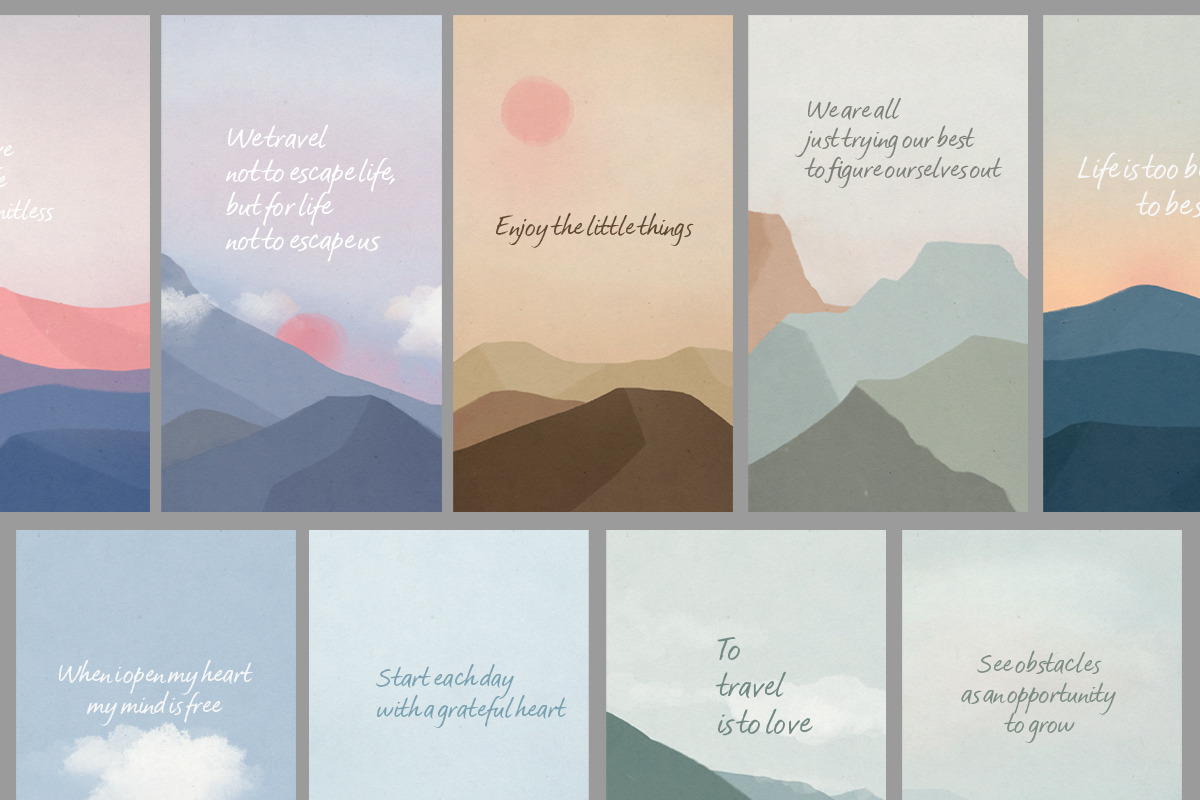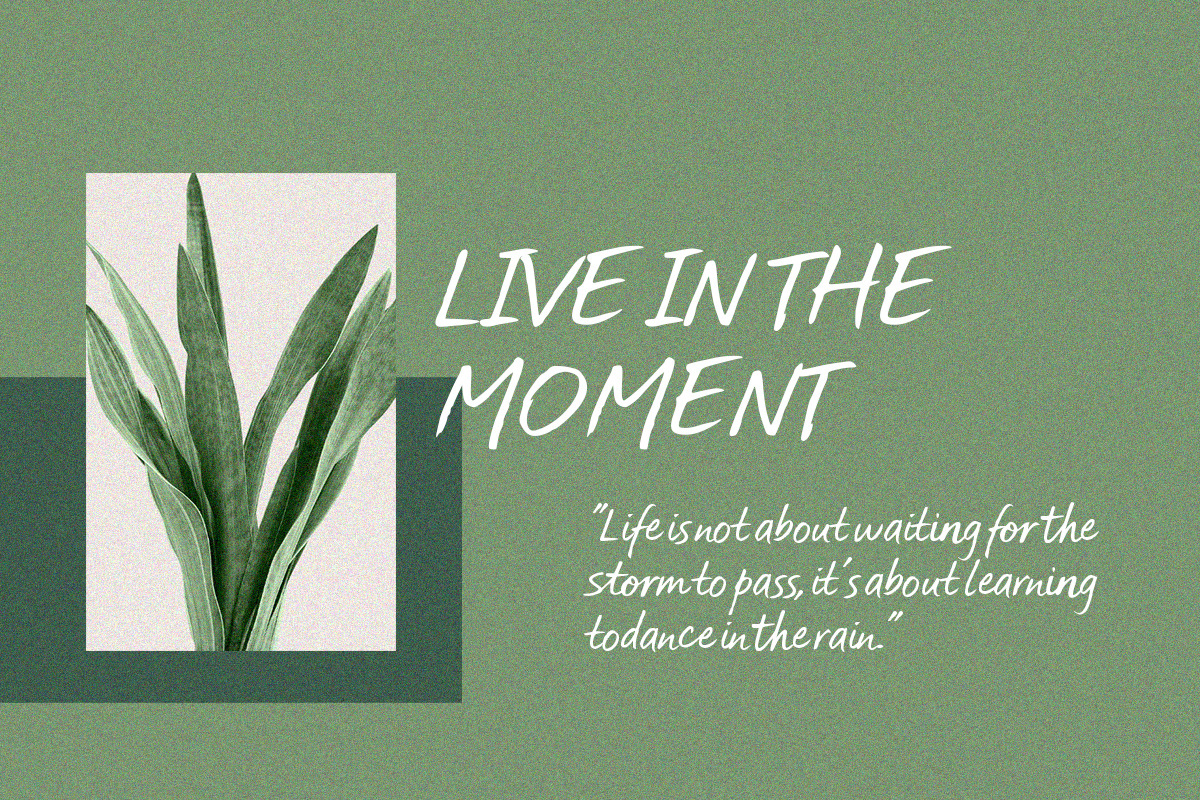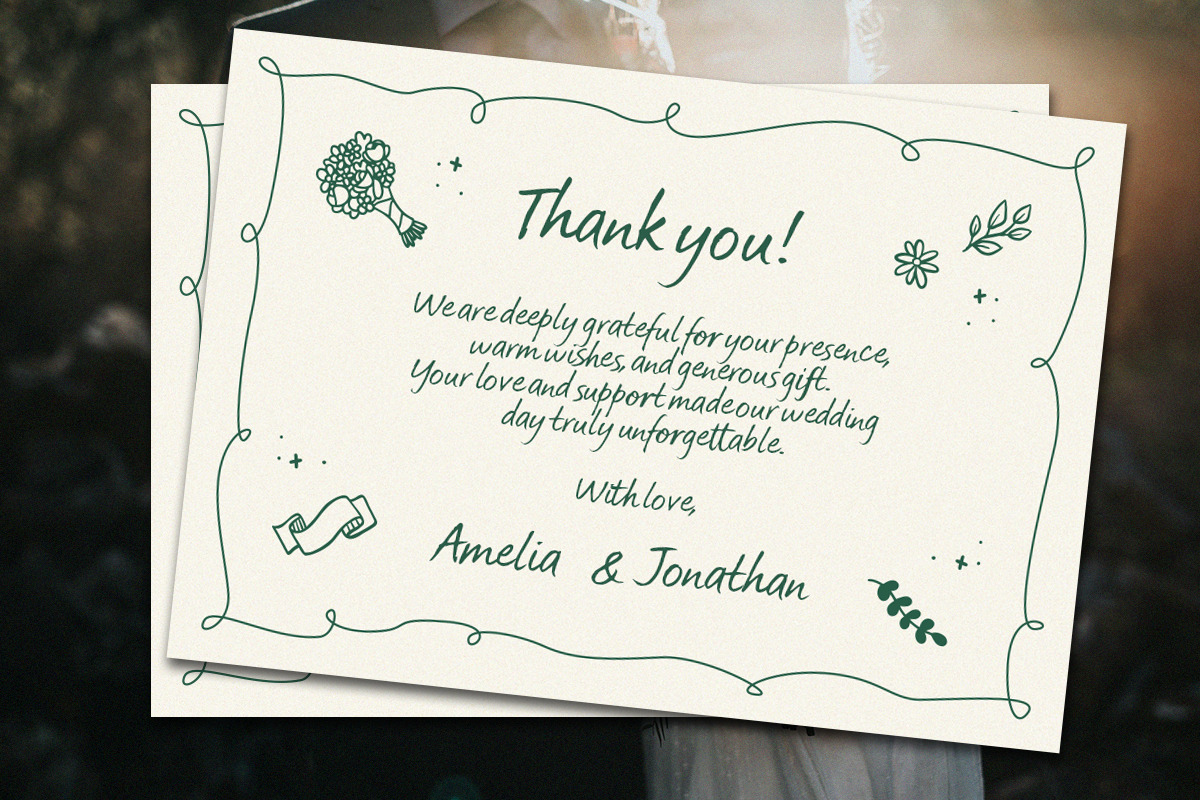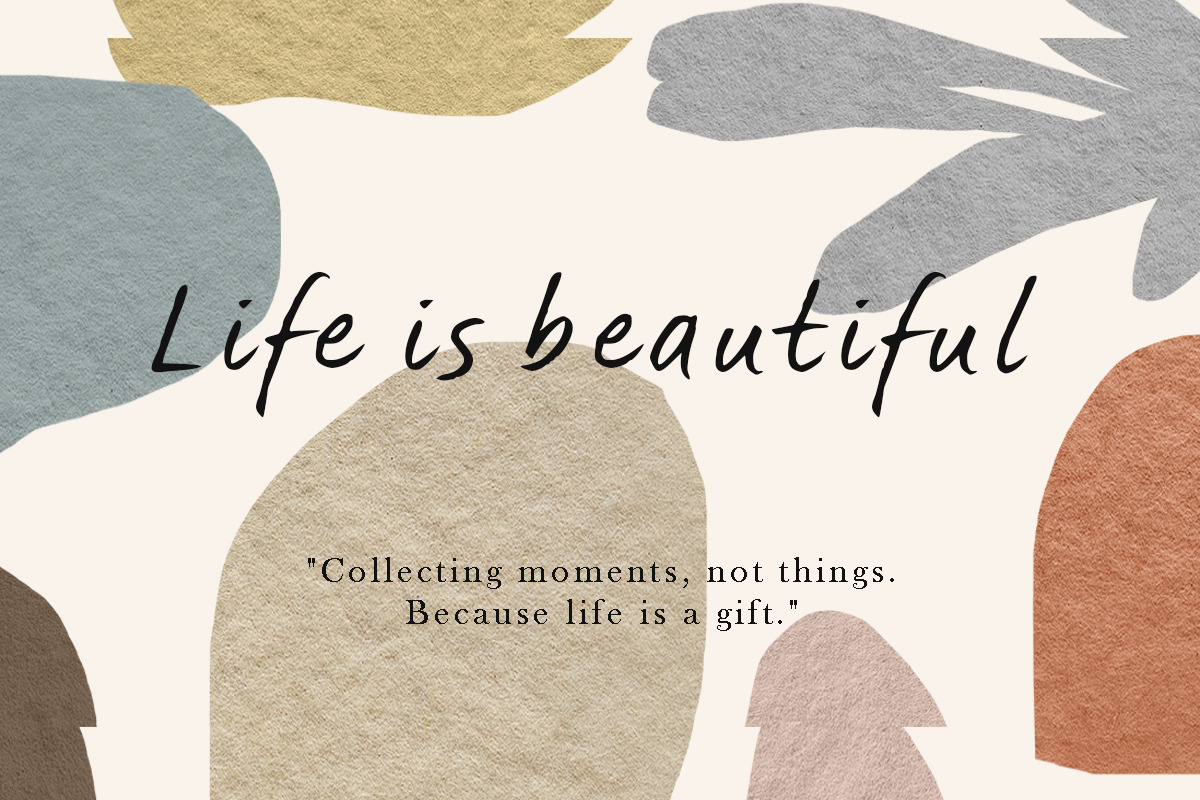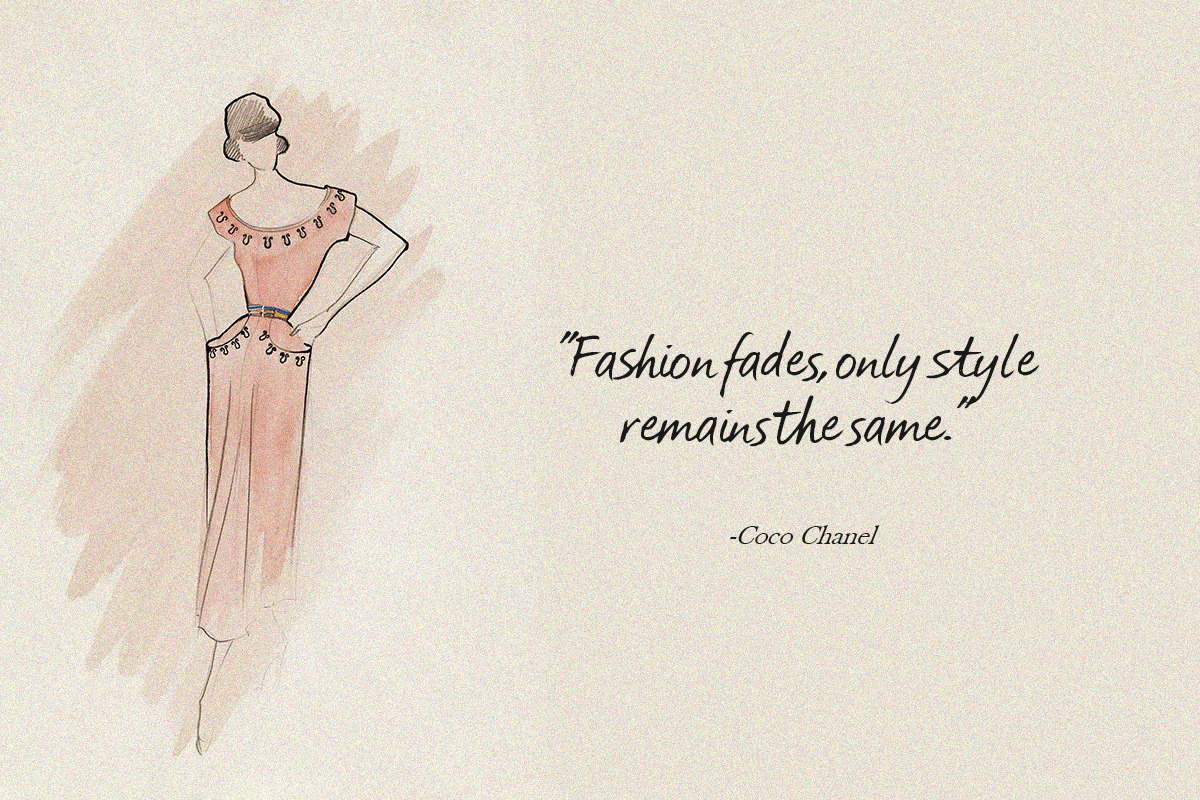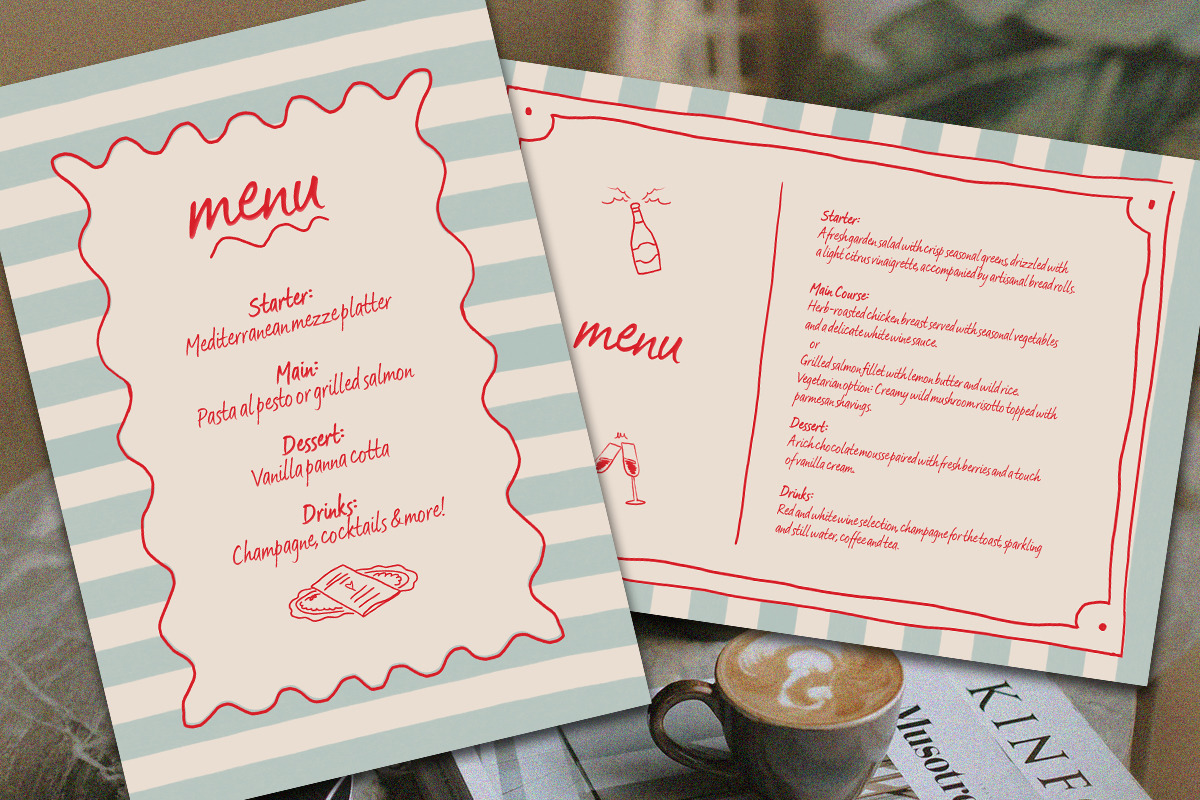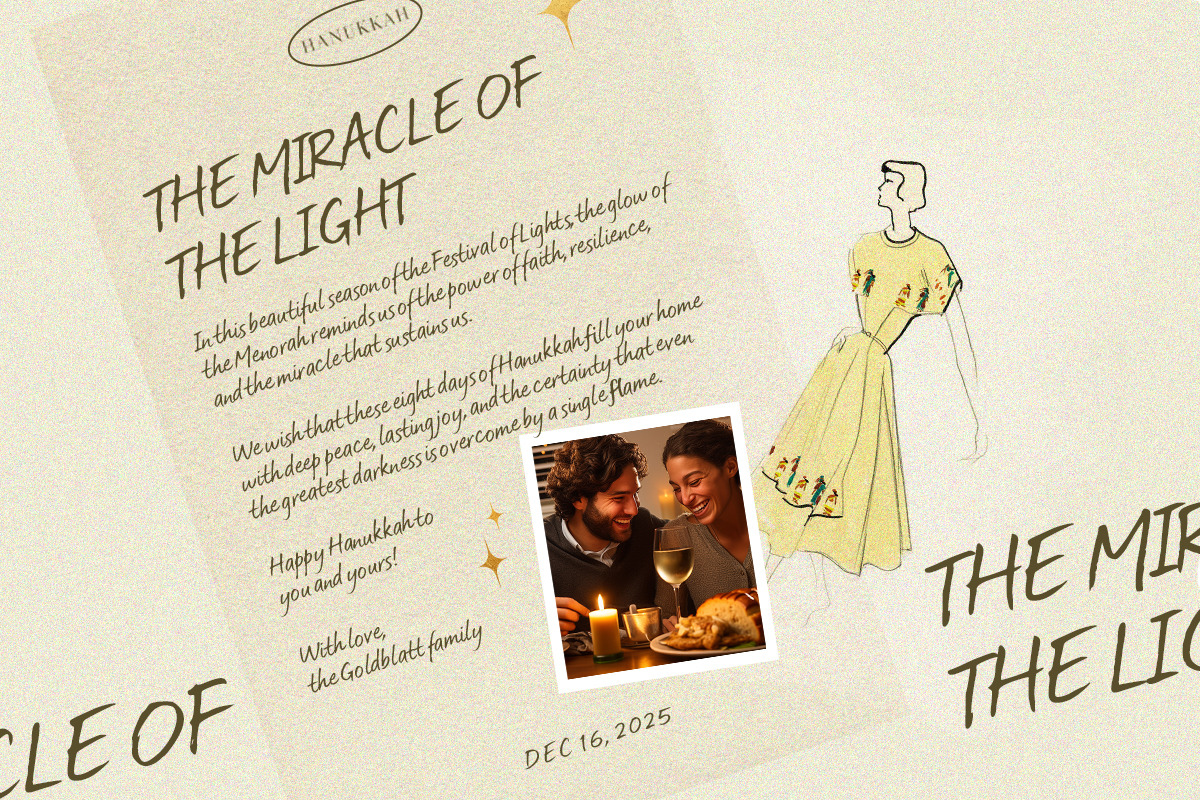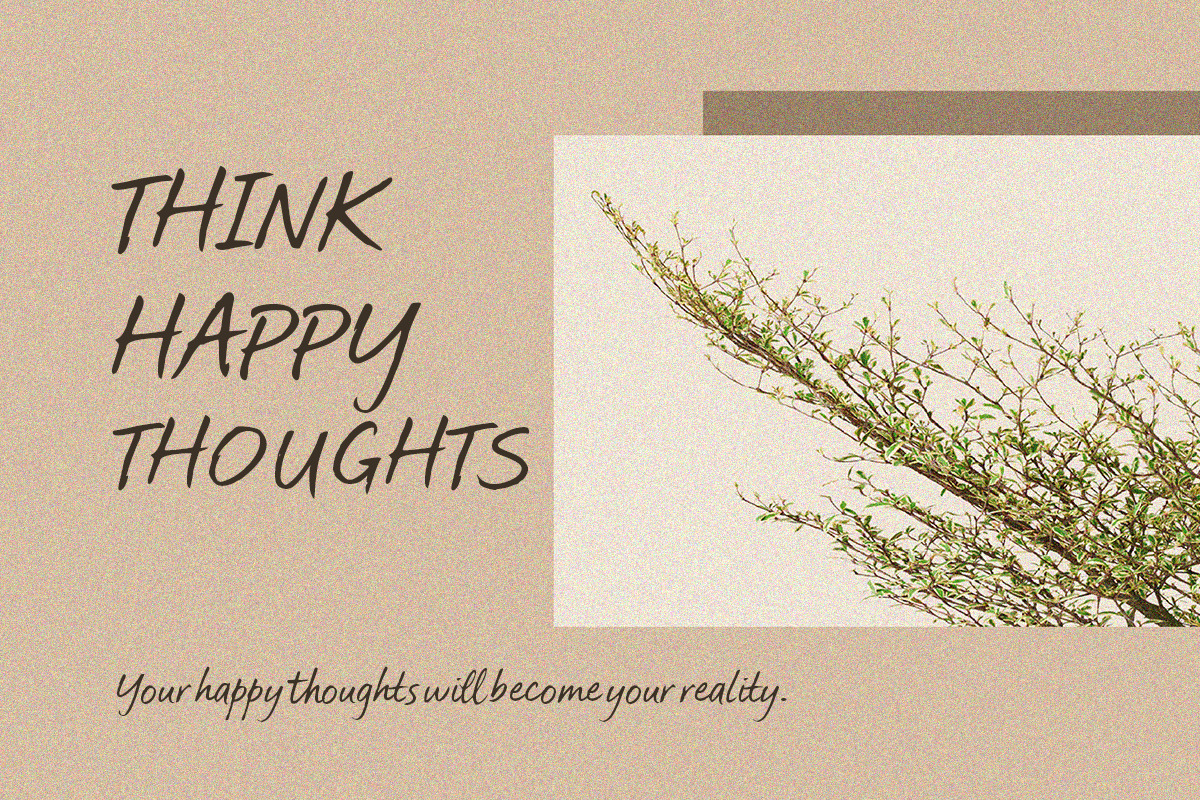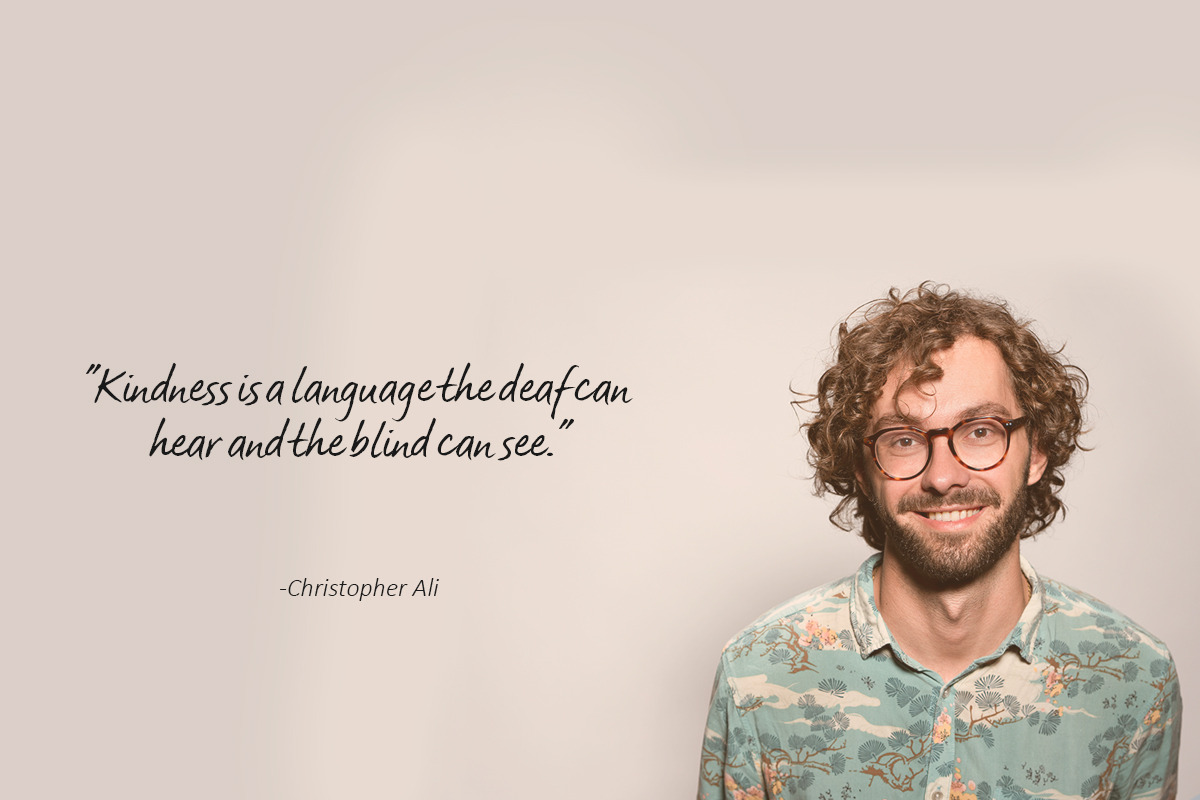
Honduras Story
The Essence of "Life is Beautiful" Inspired by a spirit of curiosity and a warm smile, this collection celebrates the art of living. Life isn't about perfection; it’s a canvas where every unwritten day is a new brushstroke. By furnishing our souls with wonder and choosing kindness—the language even the deaf and blind can understand—we turn the journey into a masterpiece.
Design Highlight: Honduras Story Font To capture this raw, personal creativity, we use Honduras Story by Struggle Studio. This natural handwritten font mimics real penmanship, making every quote feel like an intimate note. It is the perfect choice for:
Authentic Branding: Giving a "human" touch to your identity.
Soulful Content: Elevating quotes and social media with organic flow.
Personal Memories: Crafting invitations that feel truly heartfelt.